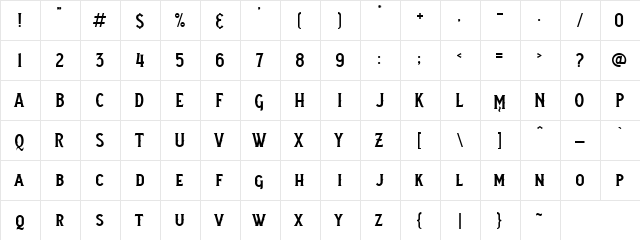
Neue Stanley Regular
| Foundry | Twicolabs Fontdation |
| Designer | Twicolabs Fontdation |
Neue Stanley takes a measured approach to typography — its balanced proportions and neutral character make it a reliable workhorse for both digital and print work.